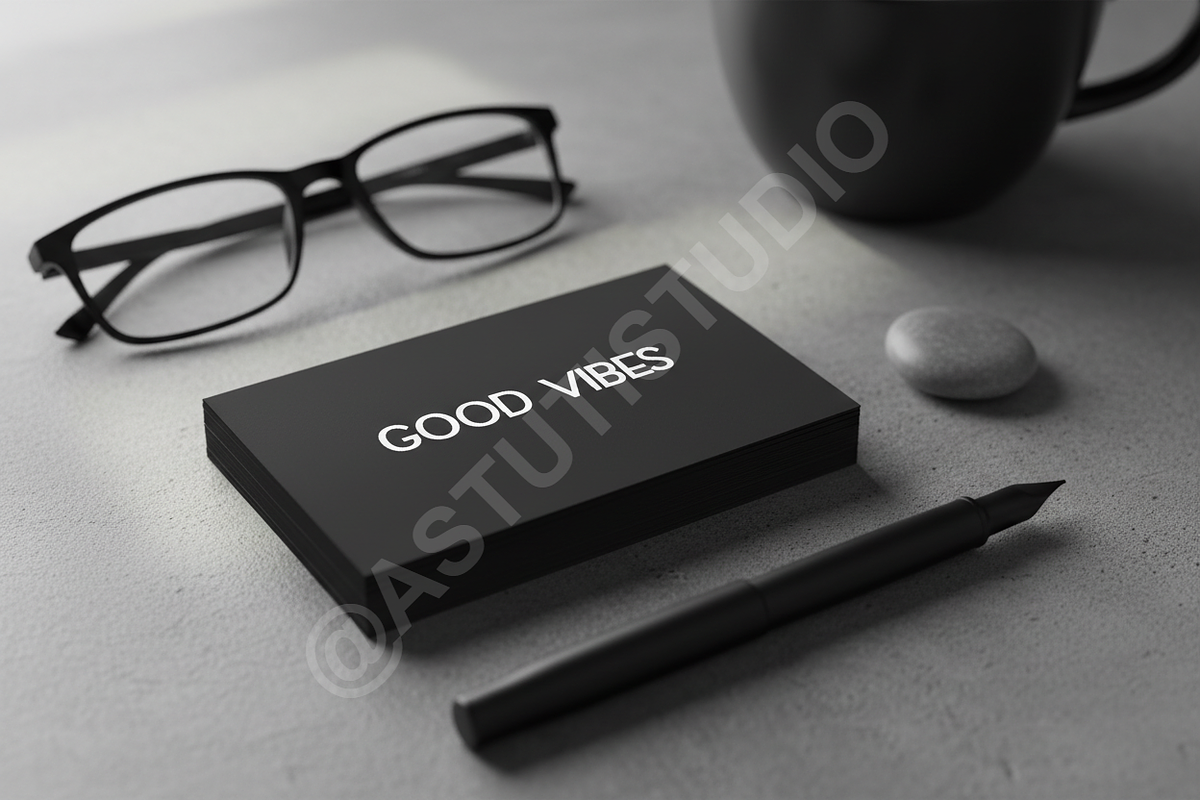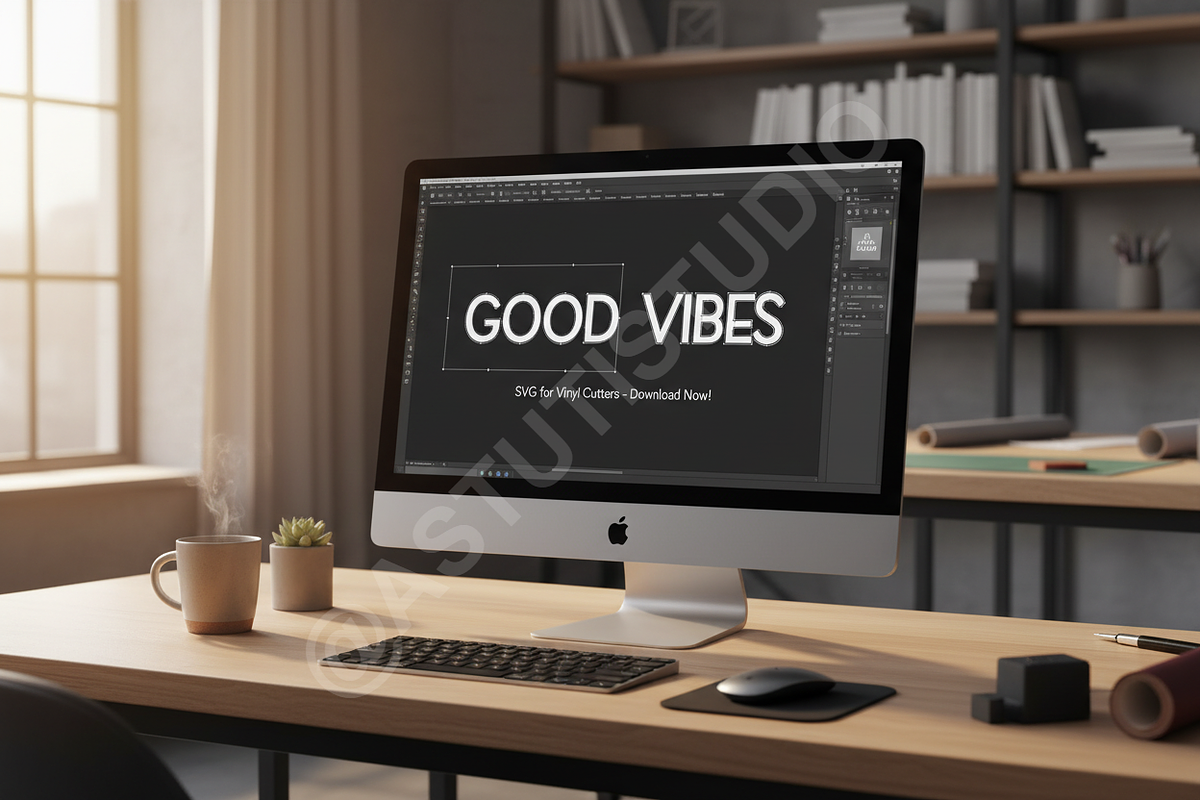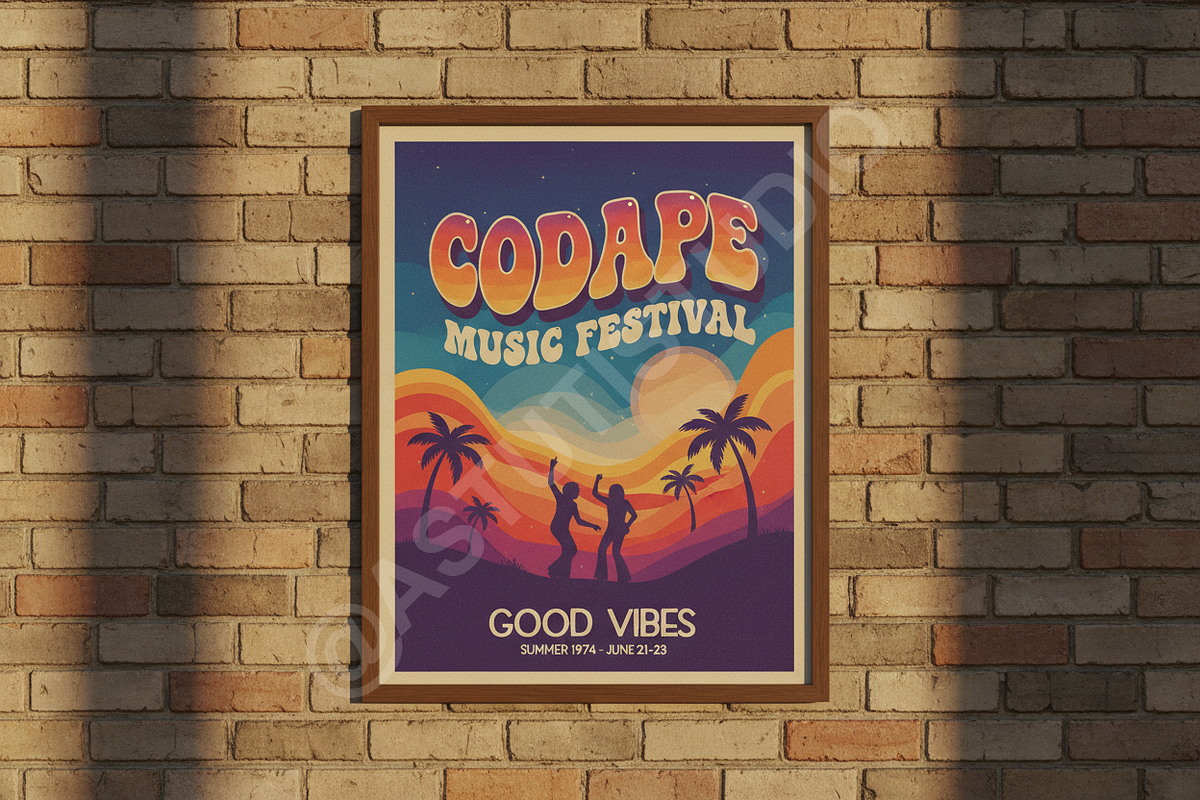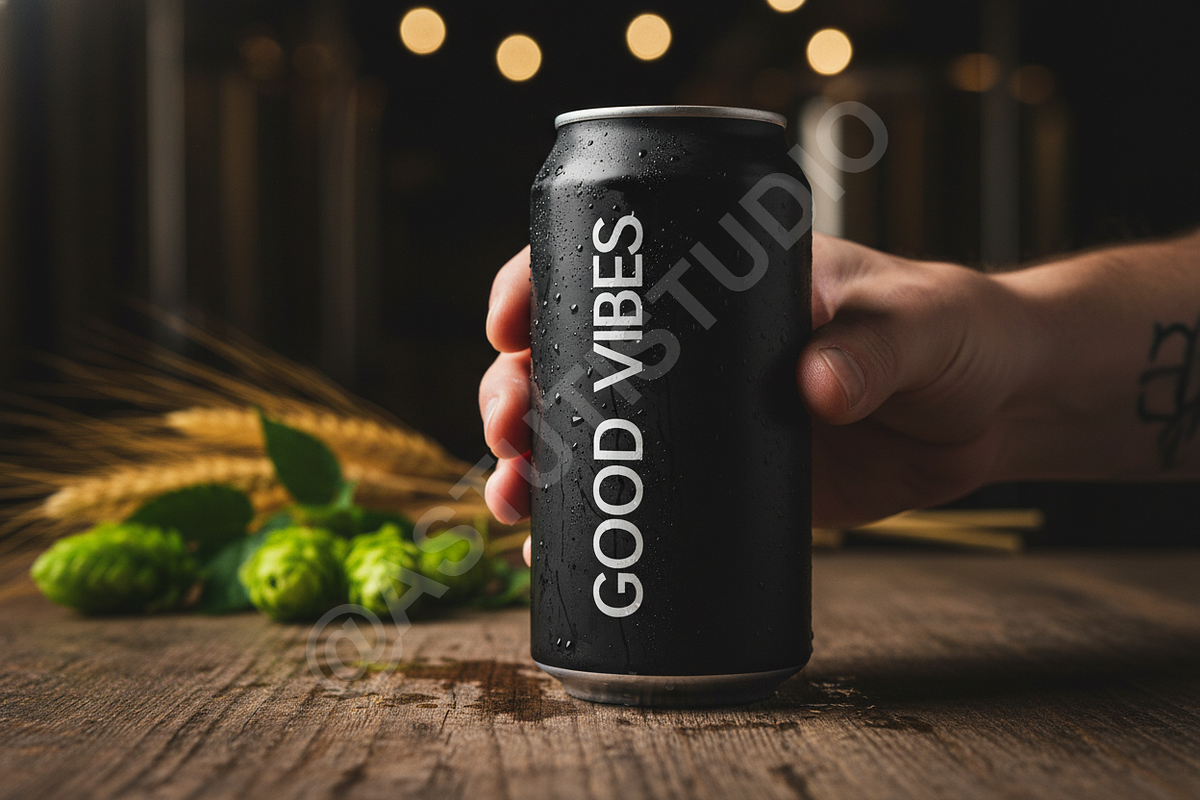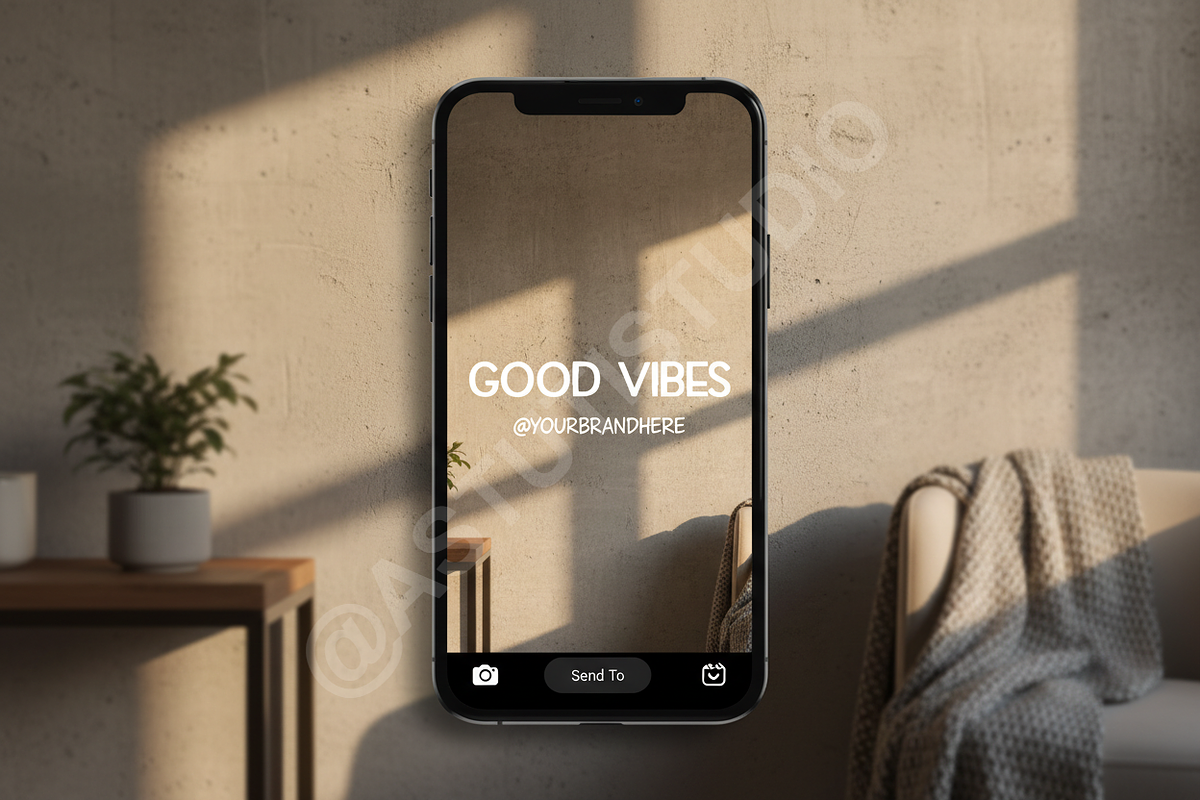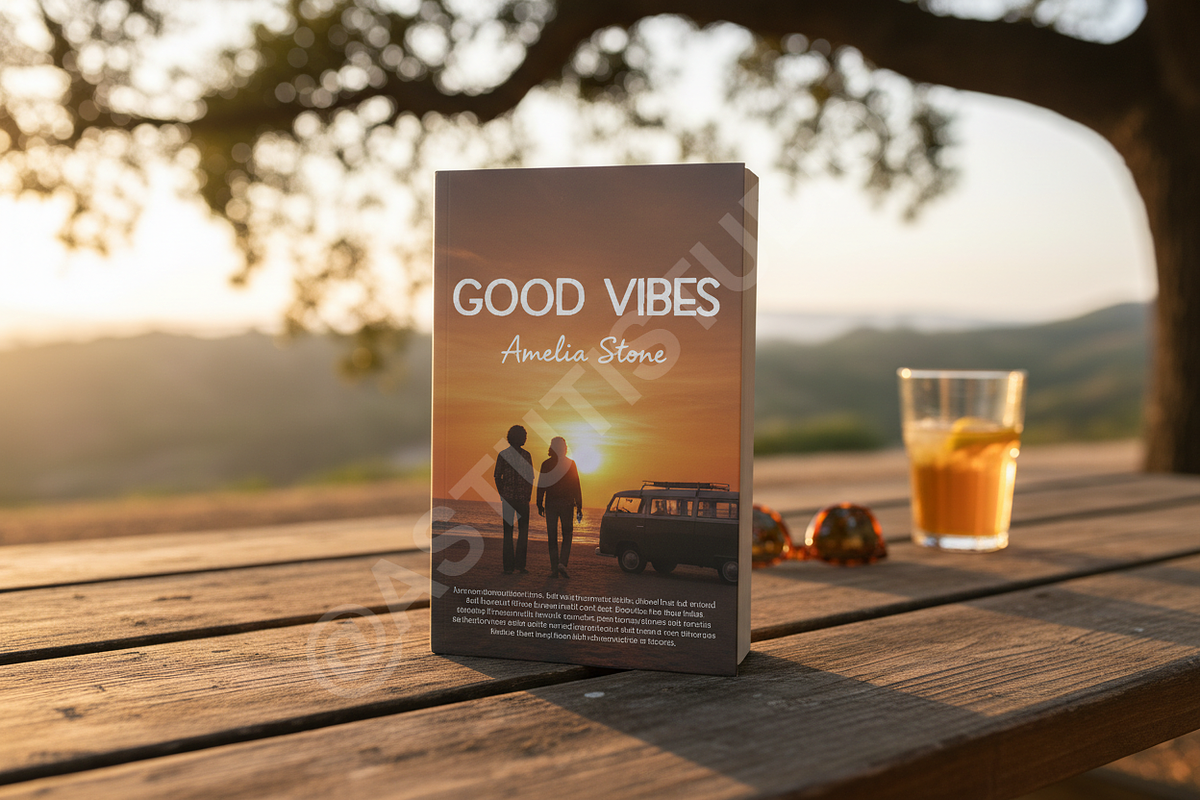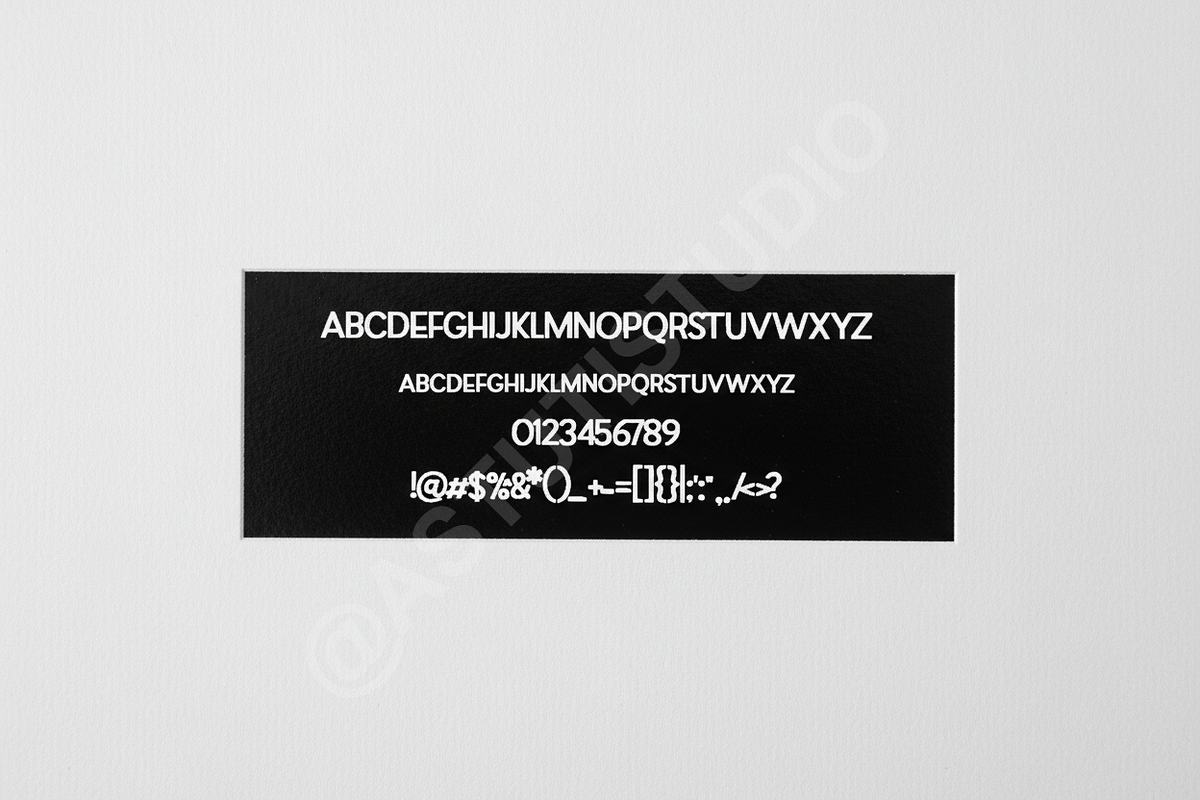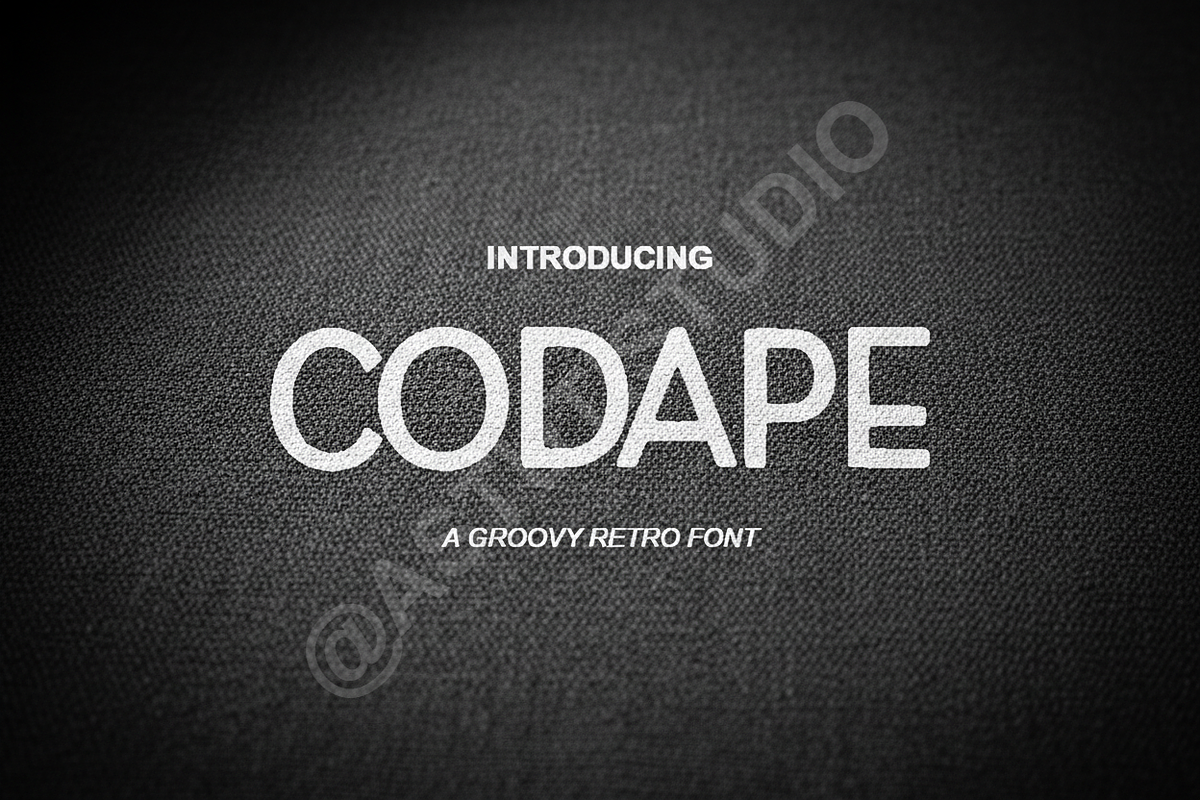
Codape | Luxury Display Serif Font
Codape is a sophisticated and meticulously crafted serif typeface designed for the modern luxury market. Blending sharp, contemporary lines with classic, confident curves, Codape provides an unmistakable sense of authority and refined elegance. It is the definitive choice for projects demanding high visual impact and timeless quality, making it perfect for exclusive product packaging, high-end editorial design, and impactful social media campaigns.
- Perfect for luxury branding, visual identities, and exclusive product lines.
- Extensive multilingual support for global outreach (Latin-1, Latin-2).
- Full set of elegant alternates, discretionary ligatures, and stylistic sets for unique typographic compositions.
- Optimized kerning and meticulous spacing for seamless editorial layout and readability.
- Versatile weight suitable for both commanding display headlines and detailed body text.